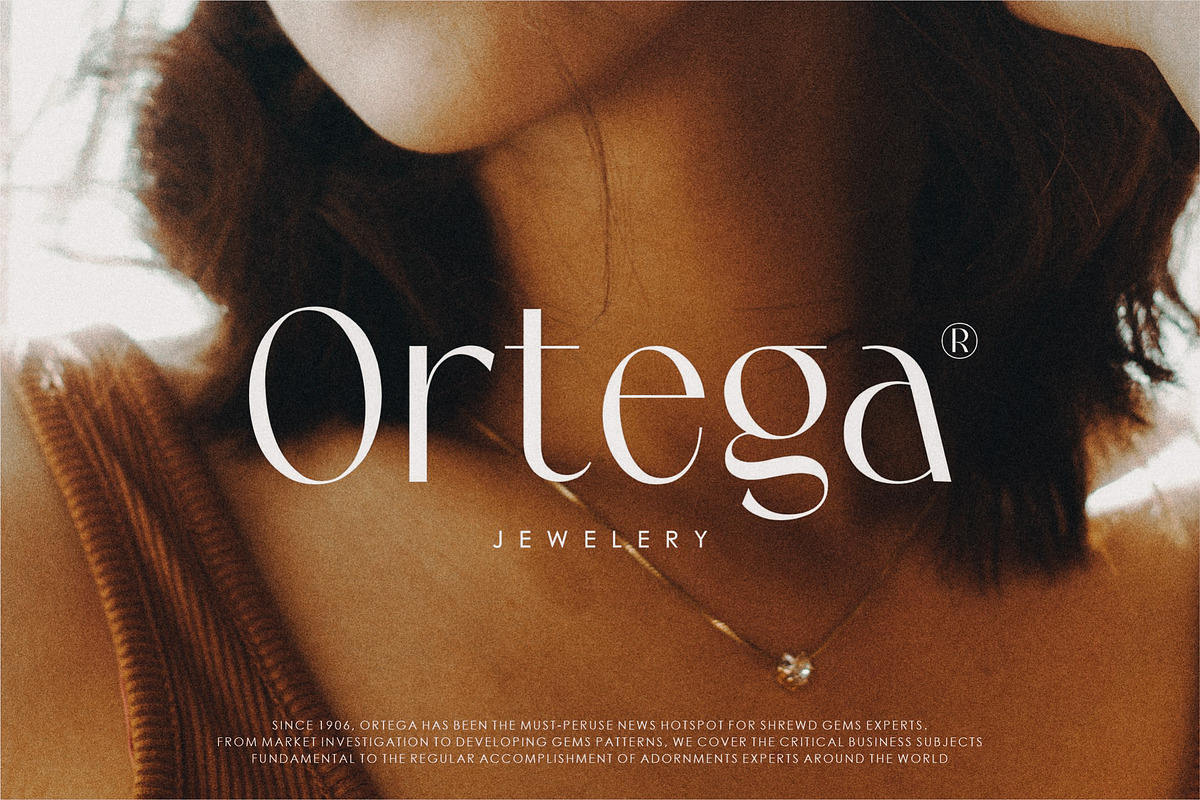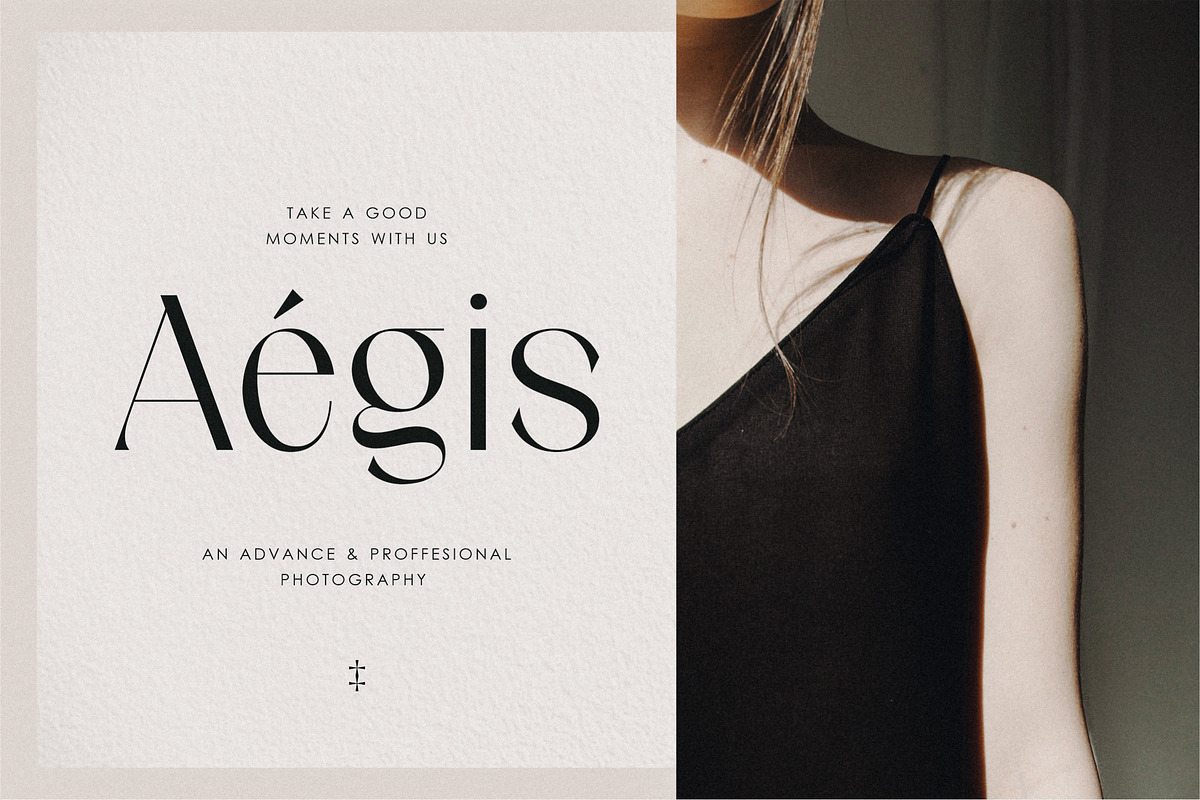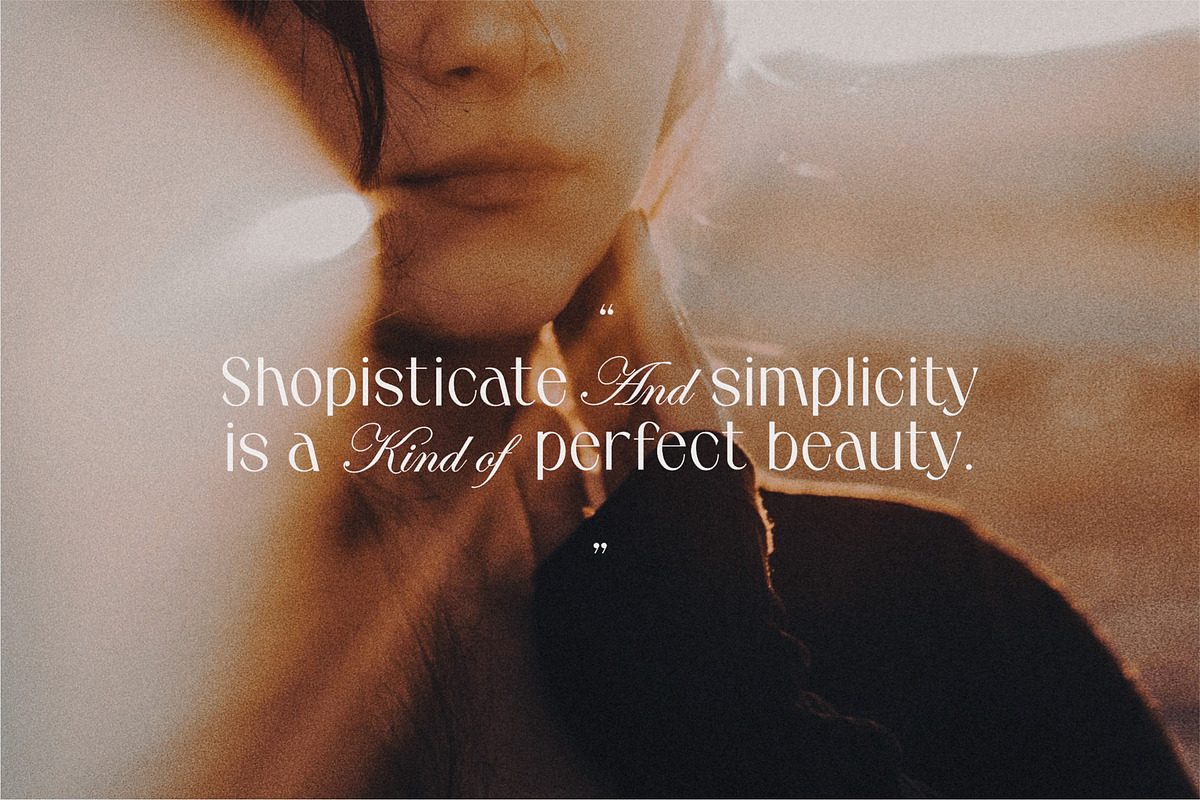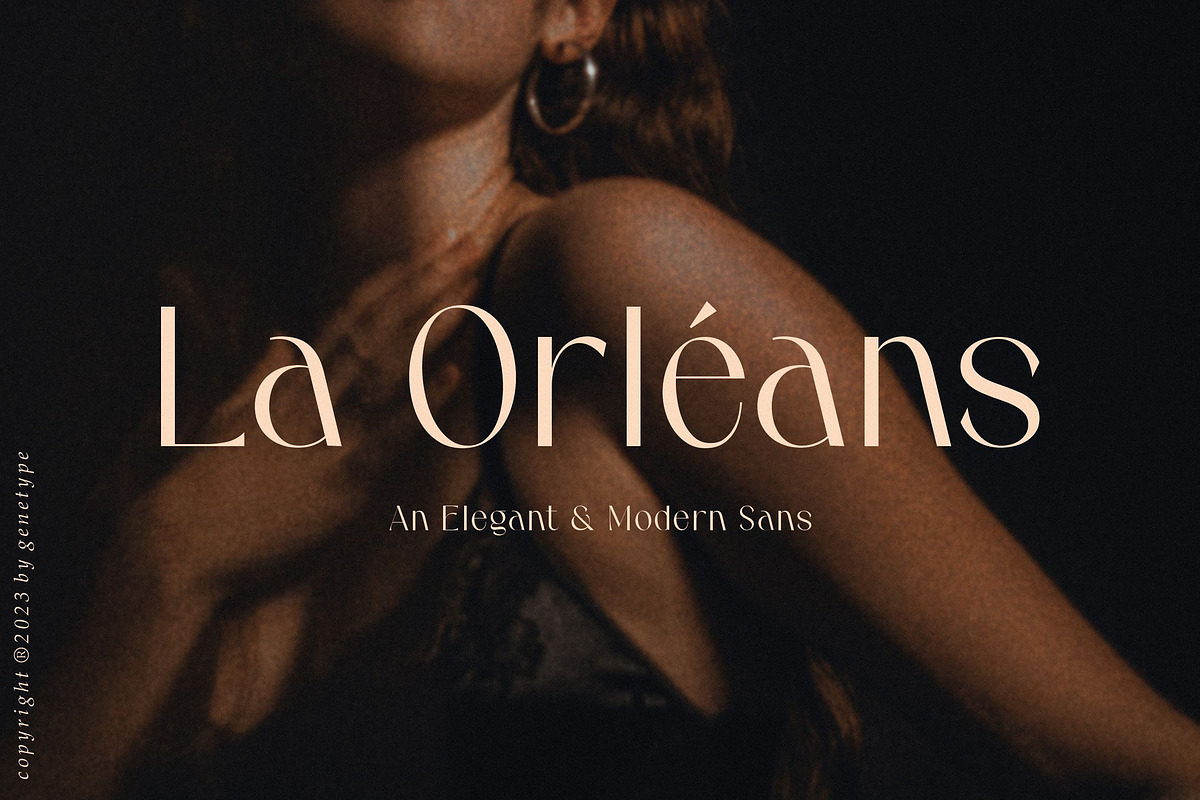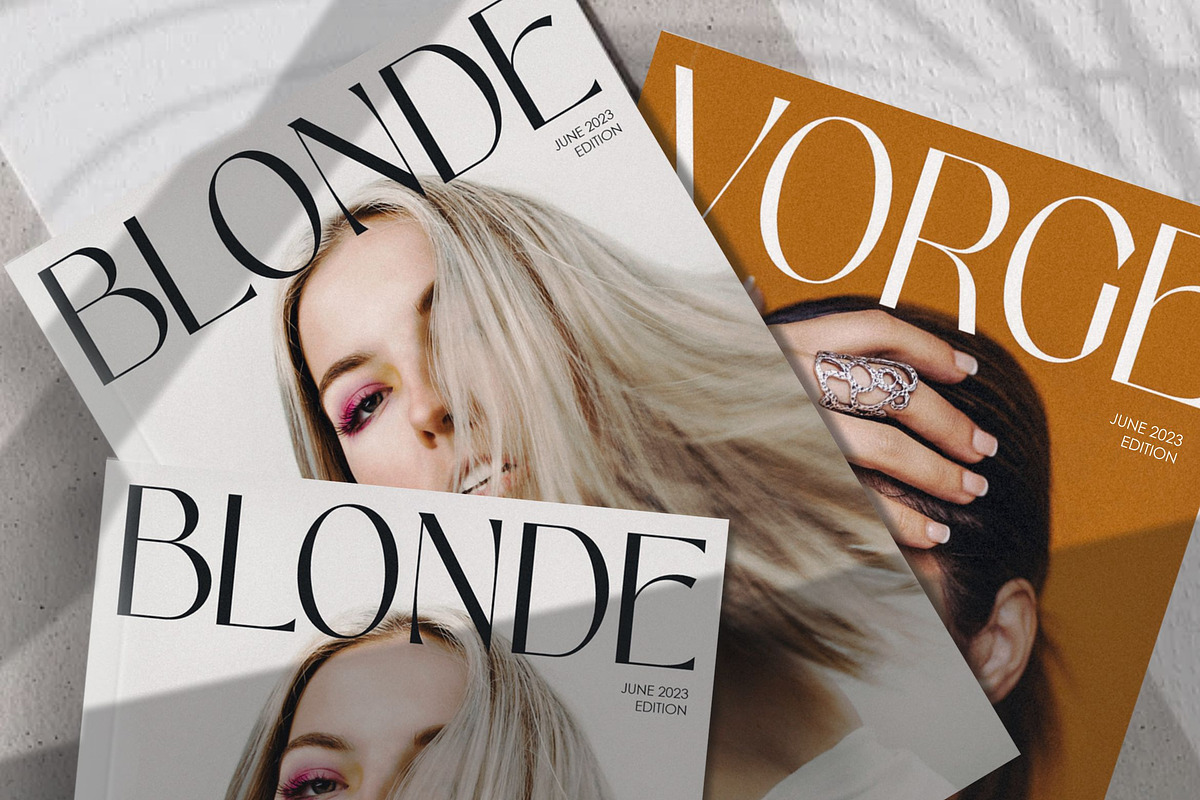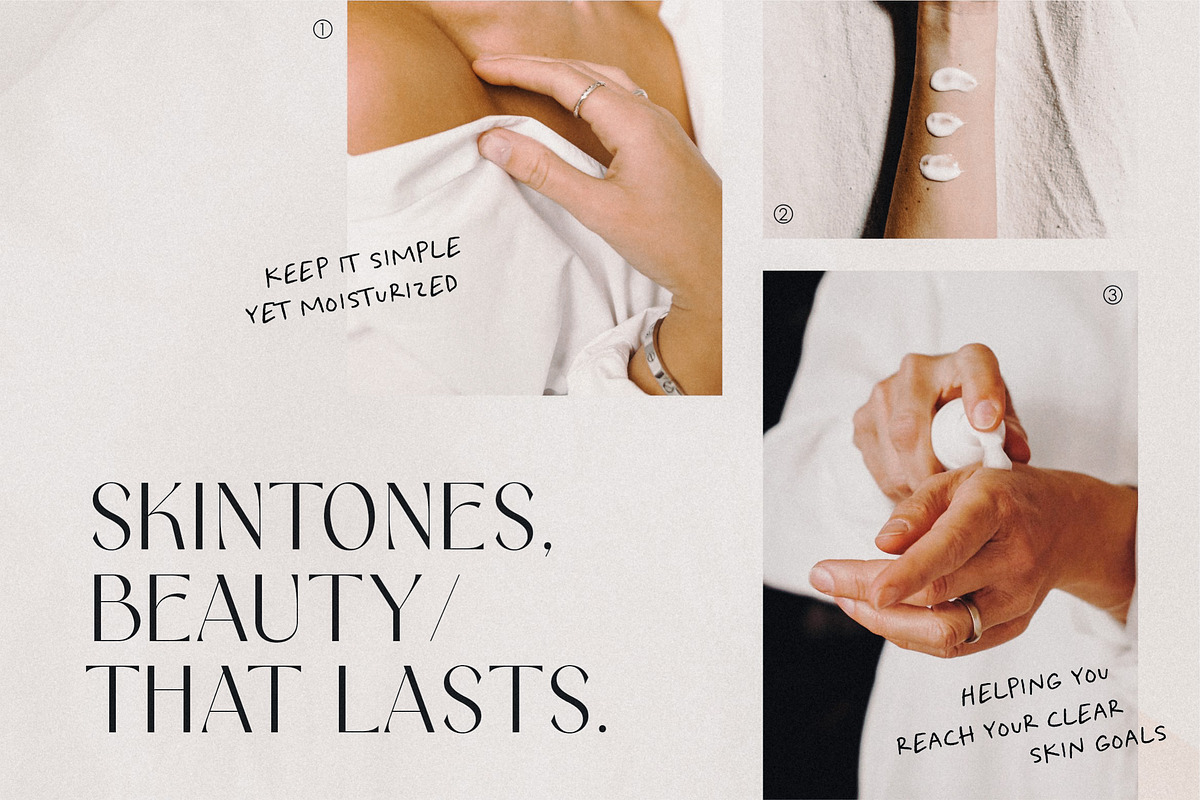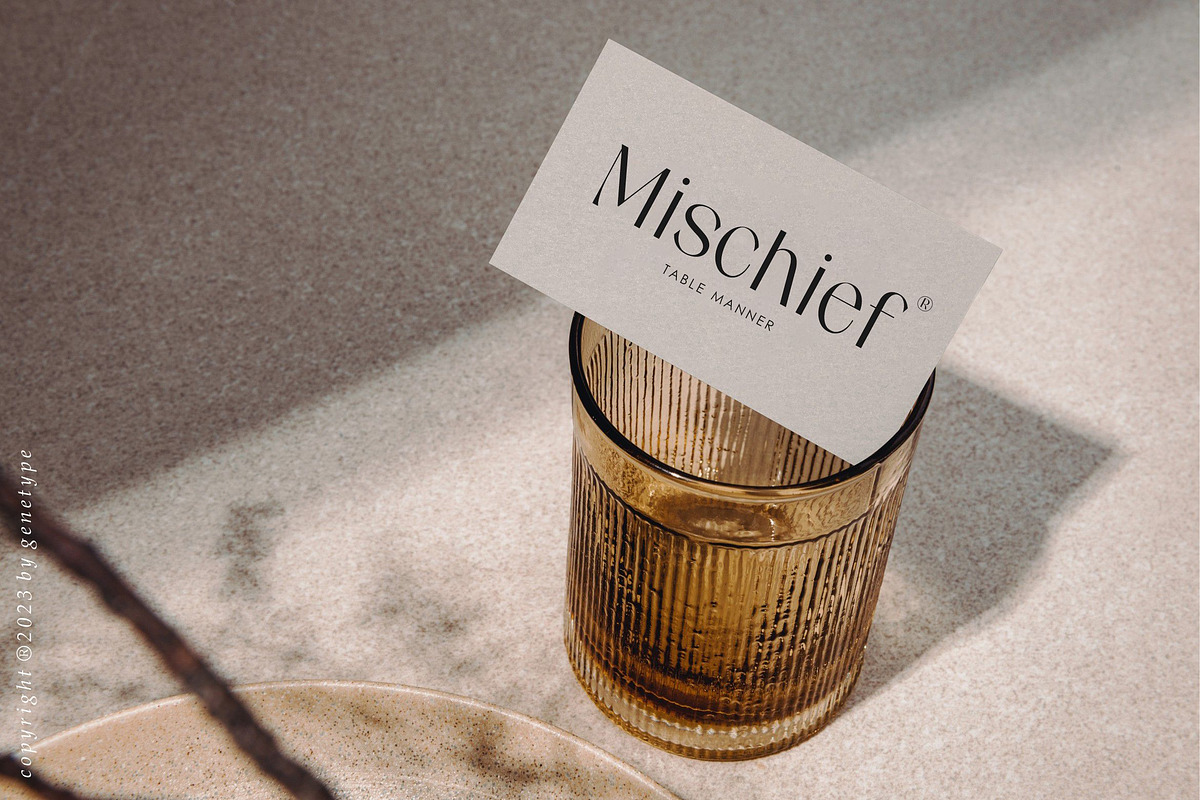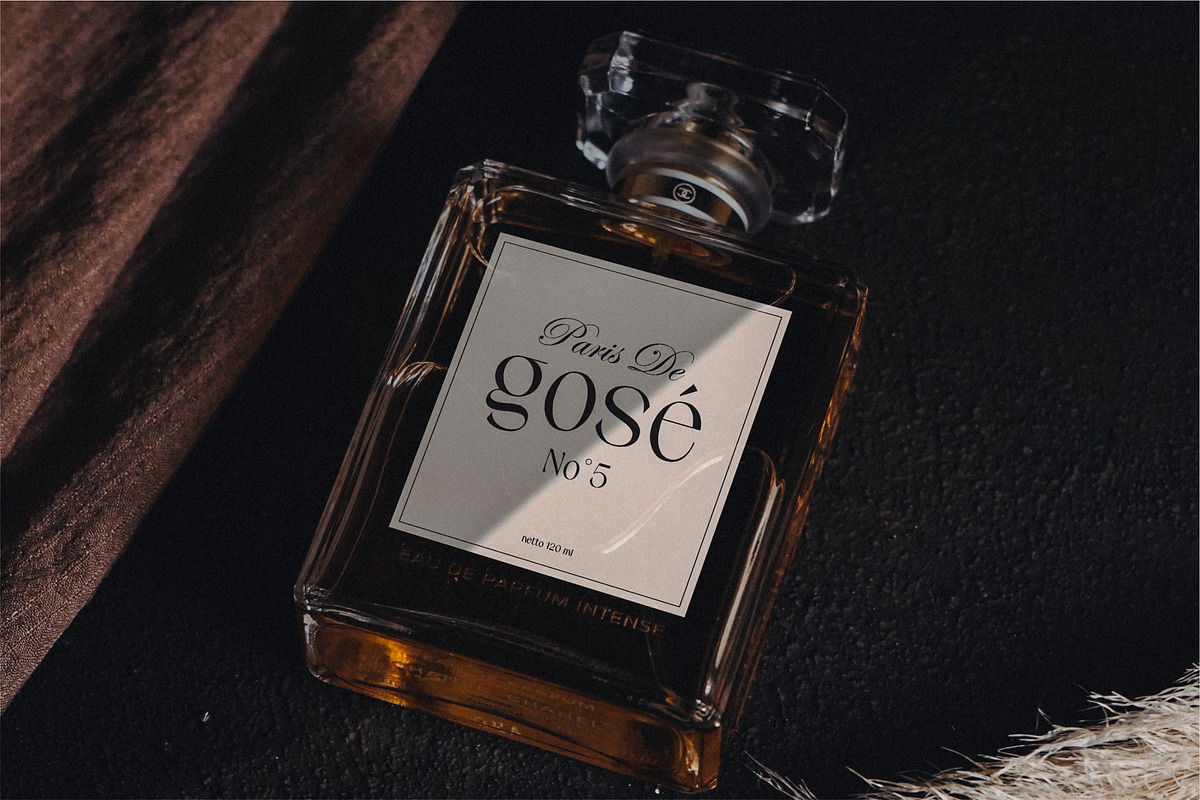
La Orleans
Introducing La Orleans Typeface: Timeless Luxury Redefined Step into a world of refined elegance with La Orleans – a font that captures the essence of luxury in every curve and stroke. Whether you're crafting exquisite invitations or elevating your brand identity, La Orleans infuses your designs with an air of distinction. Embrace the epitome of sophistication – explore La Orleans and elevate your creations with a touch of enduring opulence.